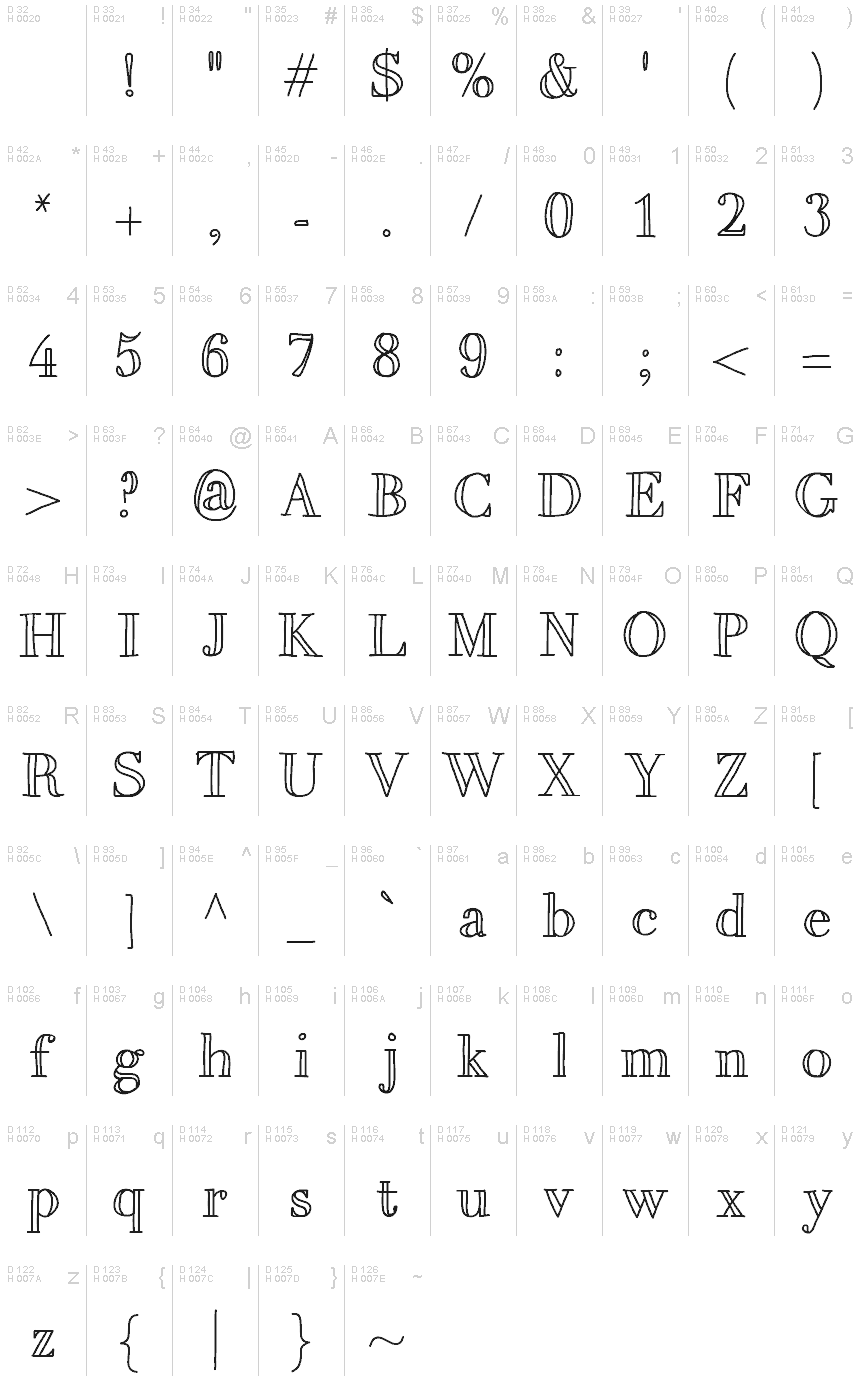
MixBrescia
Mix Brescia is a captivating display font that exudes a timeless elegance. Designed by Mix Fonts, this outlined typeface boasts striking contrast and intricate serifs, lending it a refined, sophisticated air.
Its dramatic, ornate flourishes evoke the grandeur of classical typography, making it an ideal choice for elegant branding, editorial design, and eye-catching headlines. The font's versatility shines through its ability to seamlessly transition between formal and playful applications, from high-end fashion campaigns to whimsical book covers.
Mix Brescia's distinctive personality and attention to detail make it a valuable addition to any designer's toolkit.